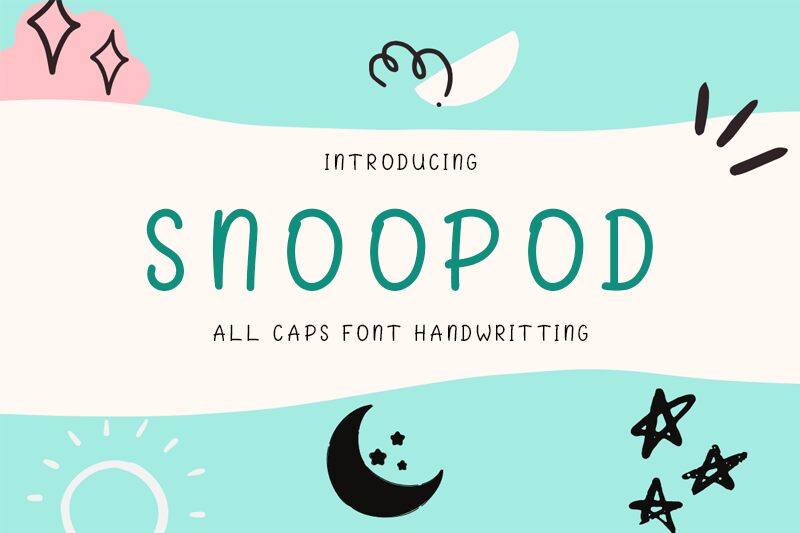
SNOOPOD, the newest addition to the world of typography, is a light, all caps handwritten font designed by Ahmad Kartiwa. With its unique style and personality, this font is perfect for any project that requires a touch of creativity and uniqueness. Whether you're designing a logo for a new startup or creating beautiful social media graphics for your brand, SNOOPOD is the ideal semi-bold font that will make your text stand out from the crowd. With its playful vibe and easy-to-read design, this typeface will add a touch of fun to any project you have in mind. Get creative with SNOOPOD!
SNOOPOD